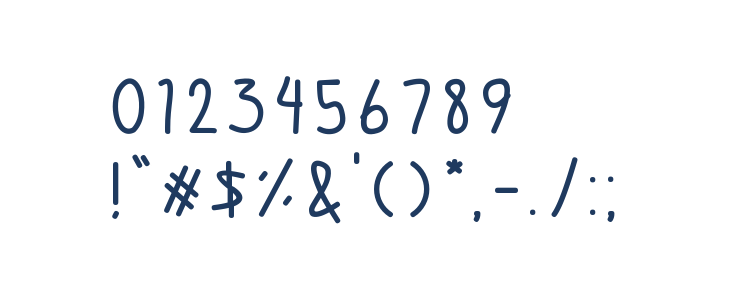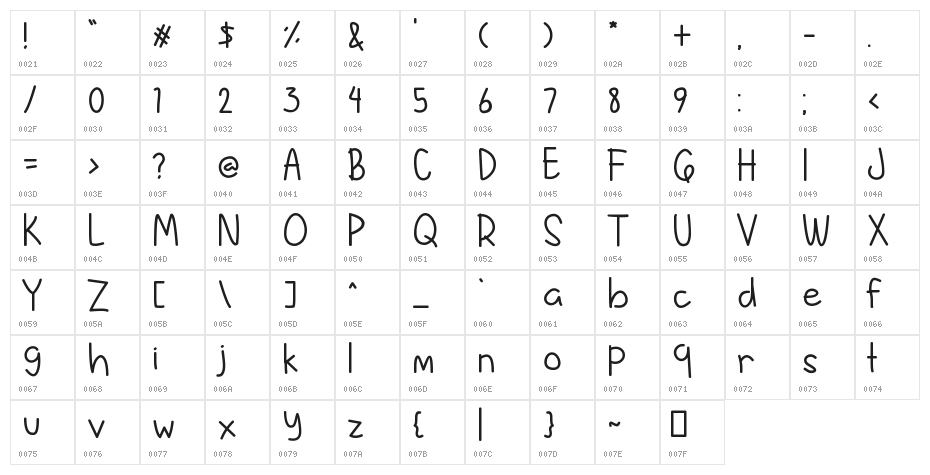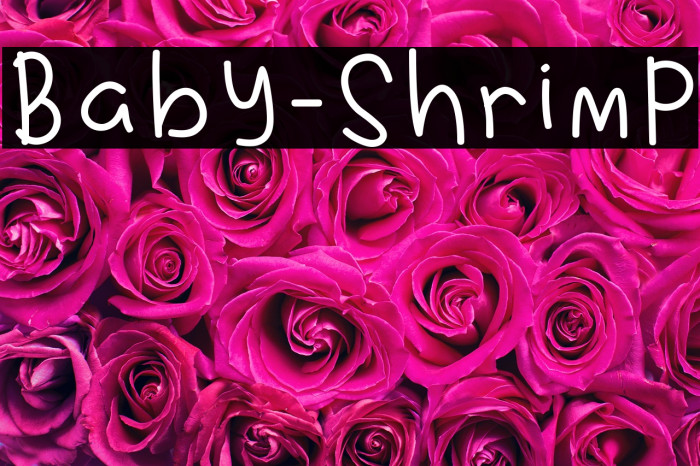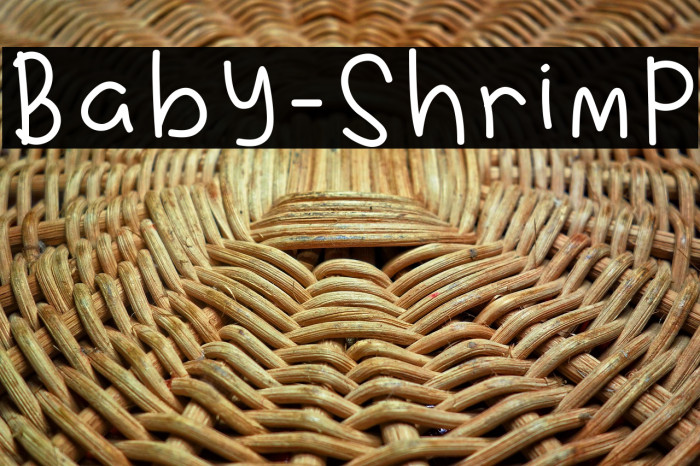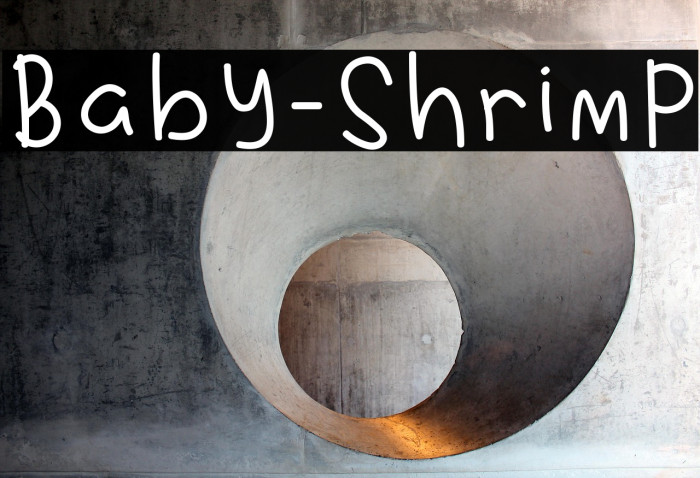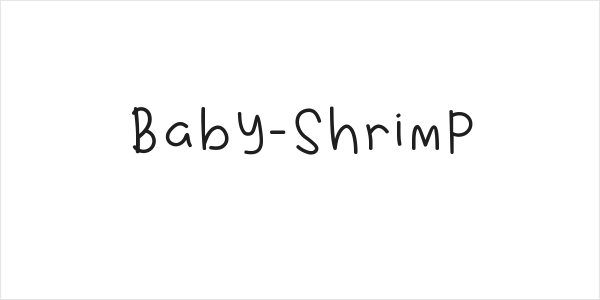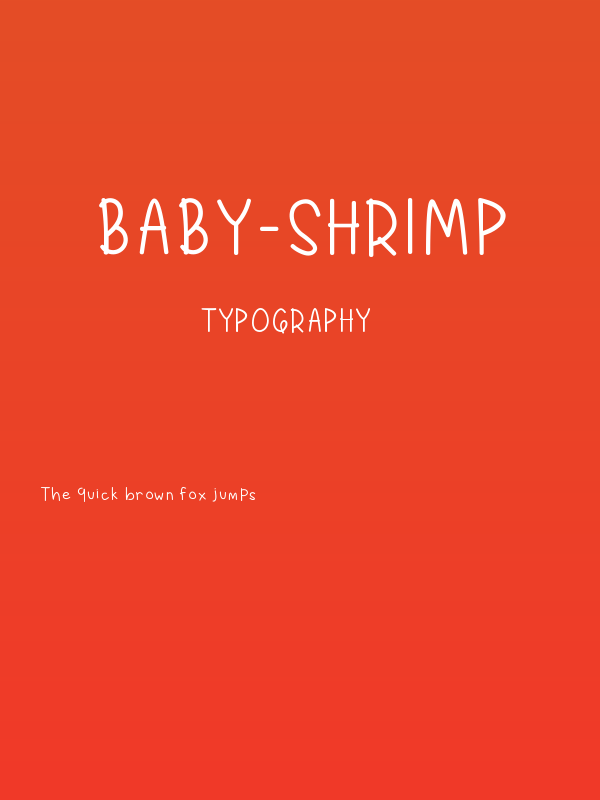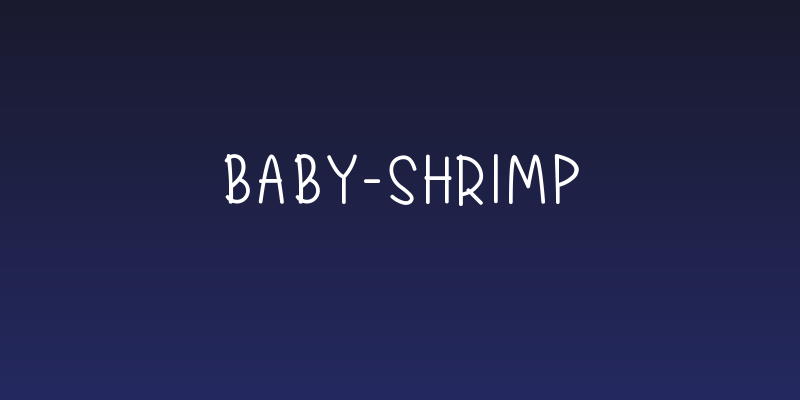
Baby-Shrimp Font
Baby-Shrimp Description
This playful and whimsical font features a handwritten style that exudes a sense of fun and creativity. The letters are slightly irregular, giving them a charming and informal appearance. The strokes are consistent in width, contributing to a clean and approachable look. The rounded edges and smooth curves enhance its friendly and inviting nature. This font is perfect for projects that aim to convey a lighthearted and casual tone. It includes a full set of uppercase and lowercase letters, numerals, and a variety of special characters, making it versatile for various design needs.